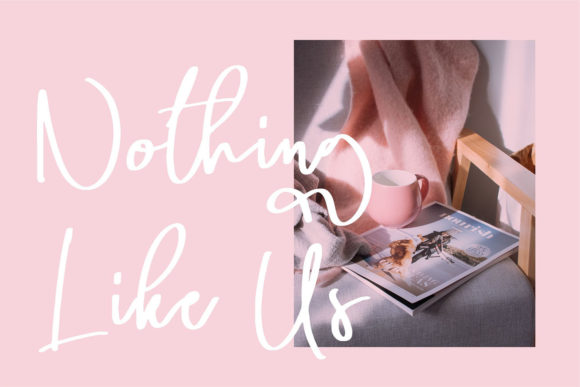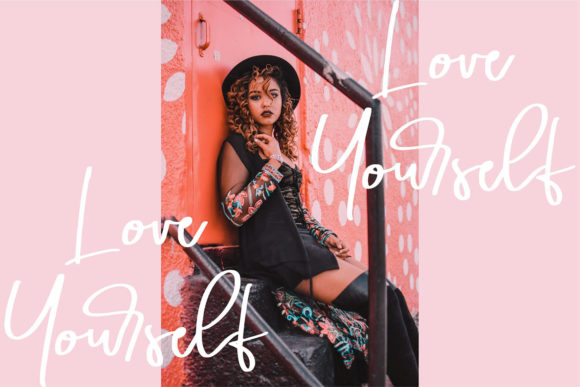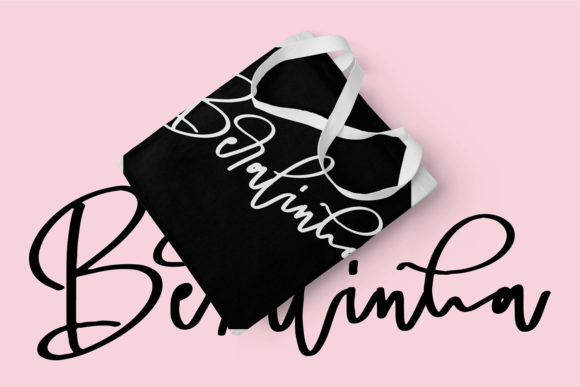
About Shaniga Font
Shaniga is a modern, whimsical and relaxed paint brushed script font. Its authentic handwritten look and feel will add a personal and realistic feel to your designs. Fall in love with this font’s incredibly versatile style and use it to create spectacular designs!